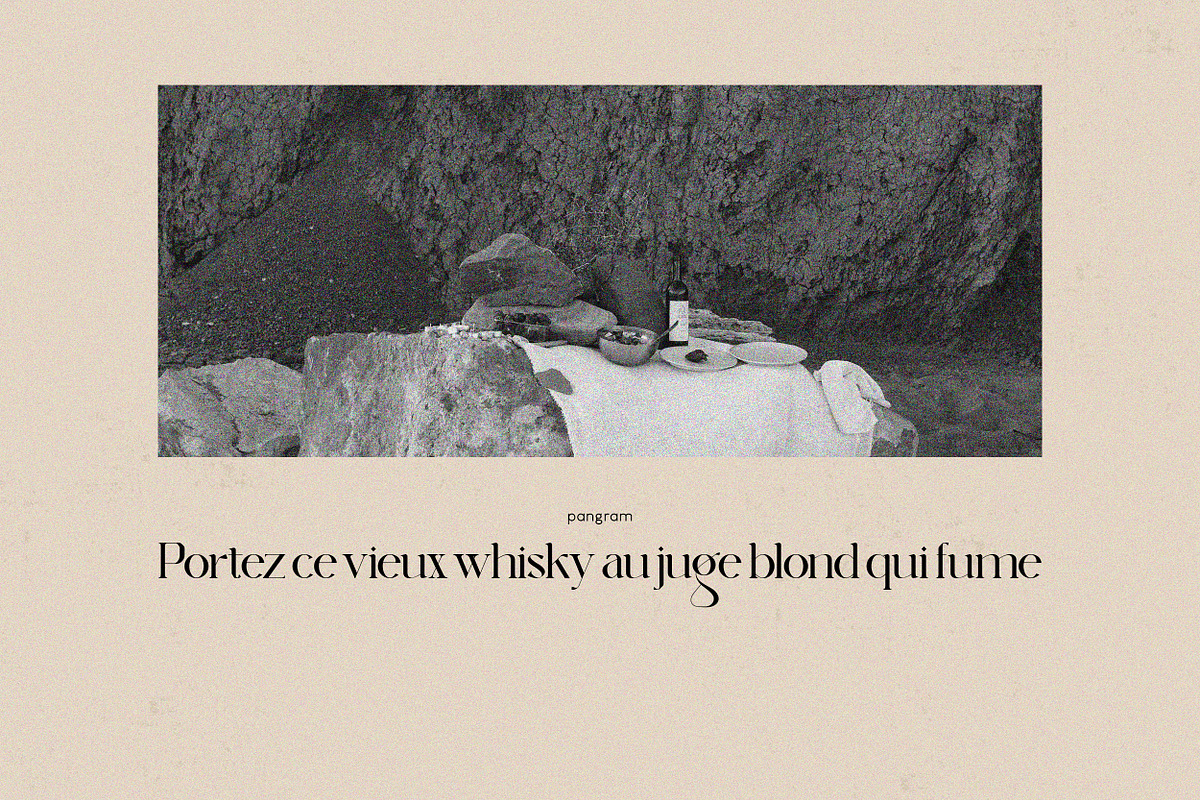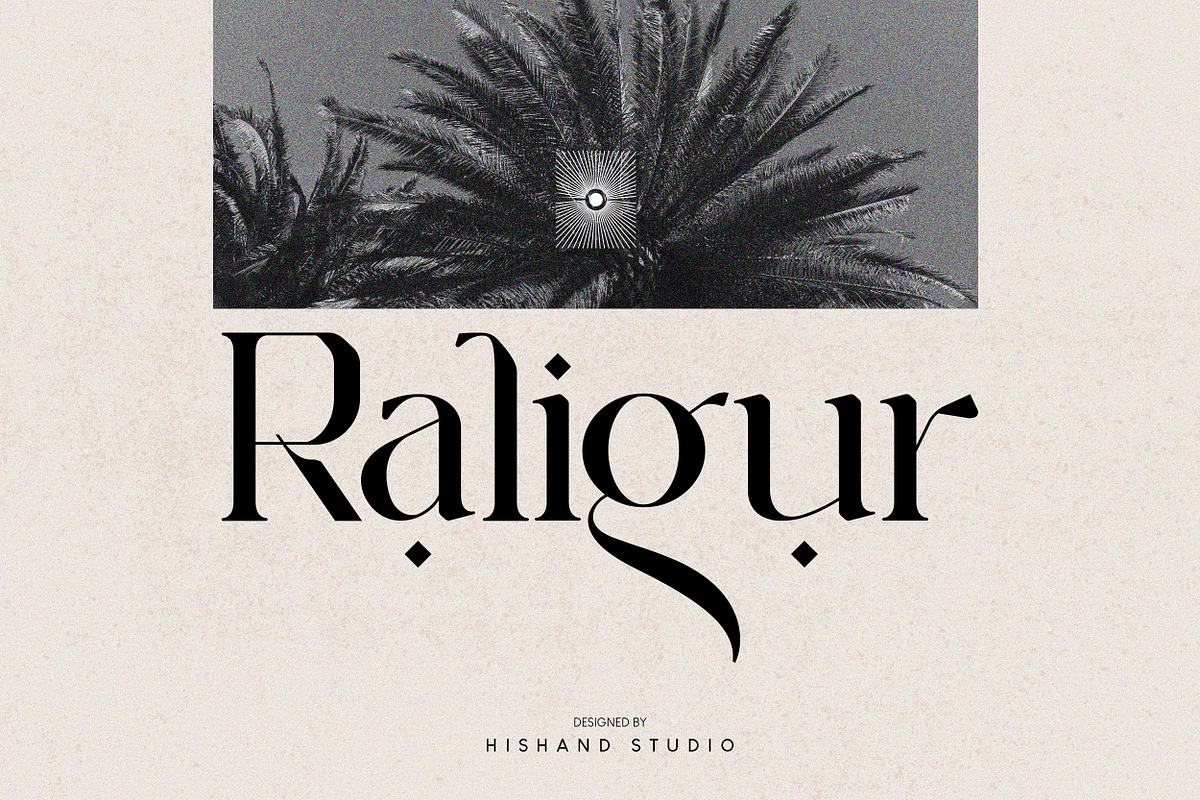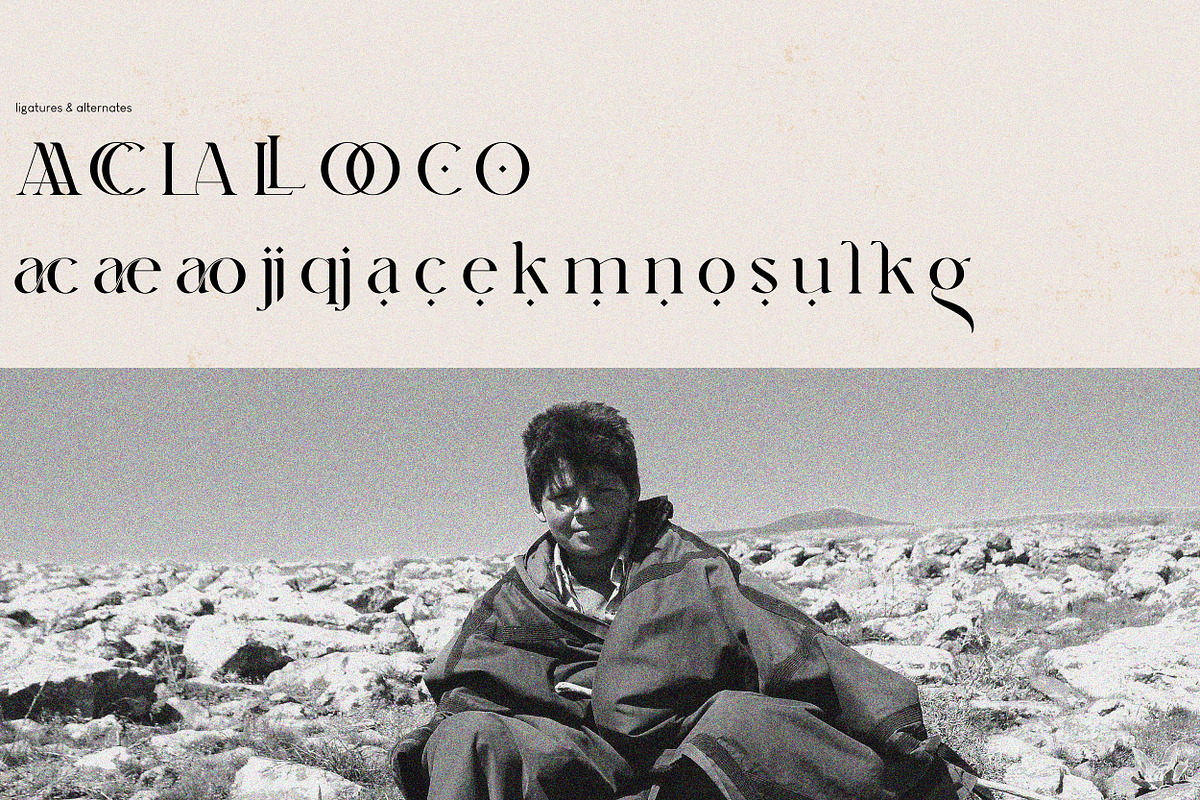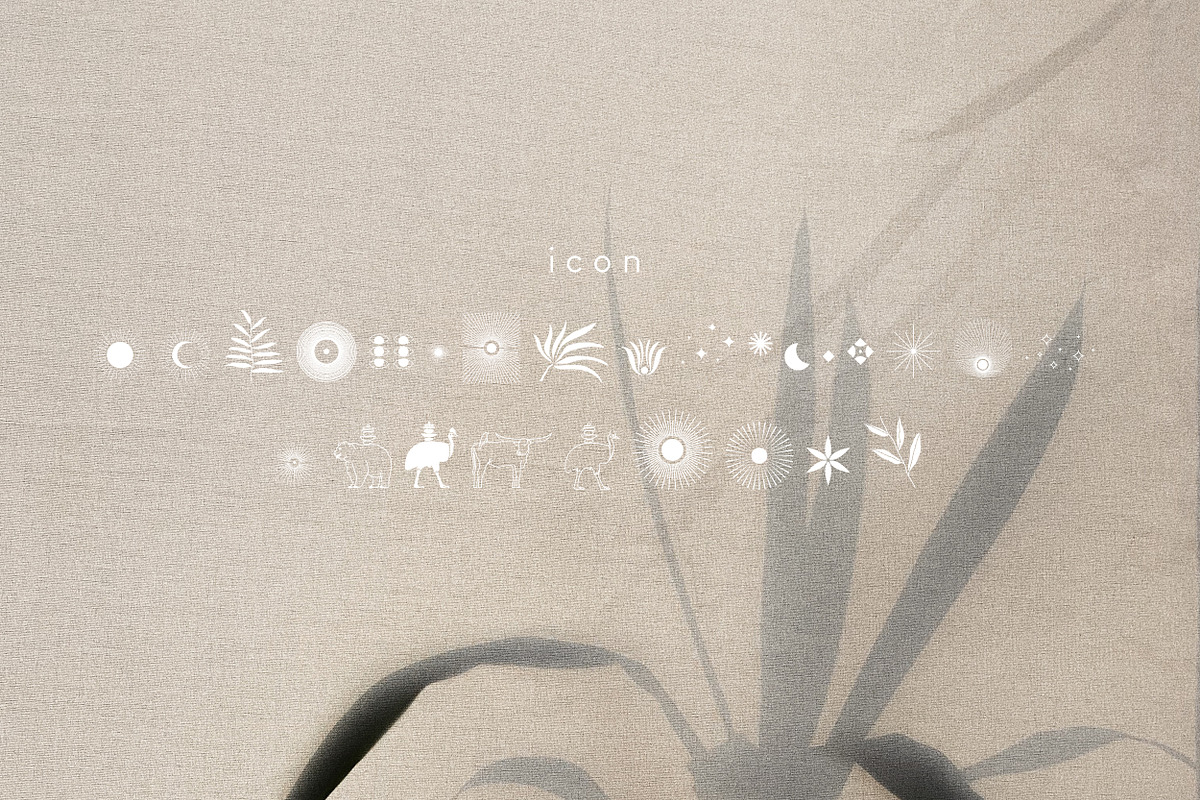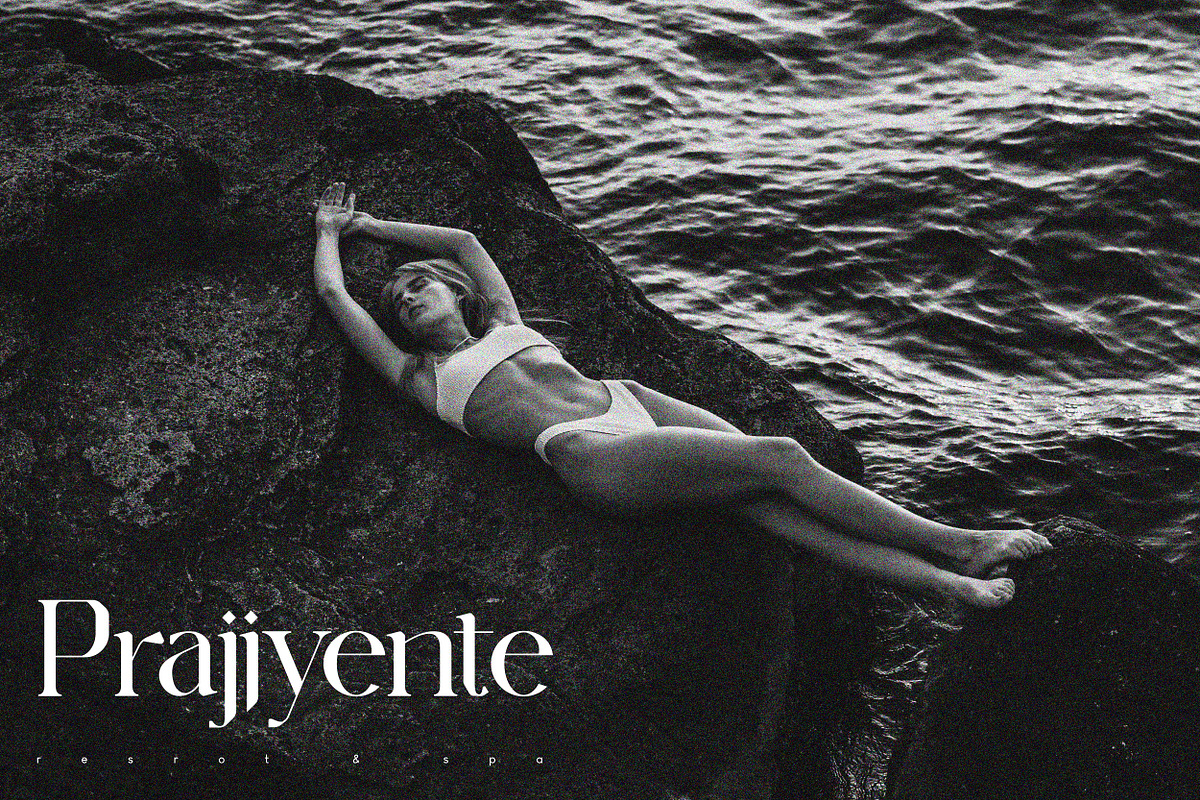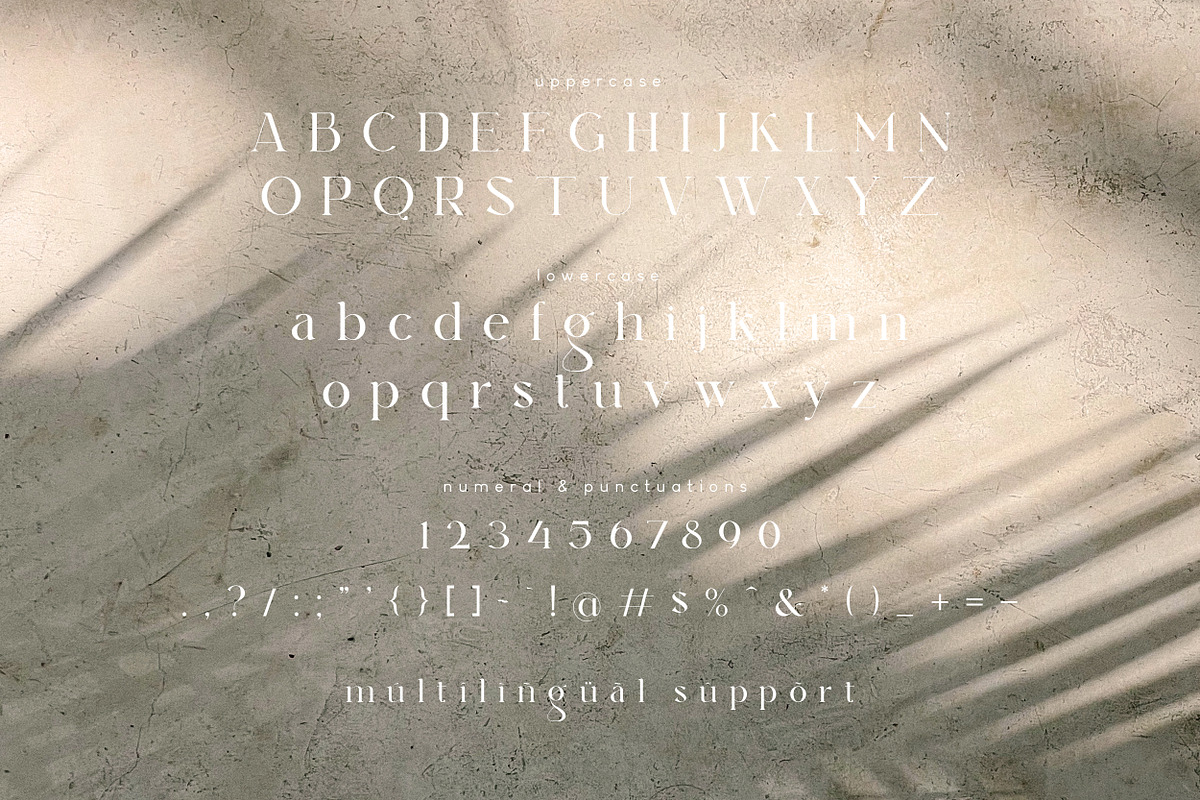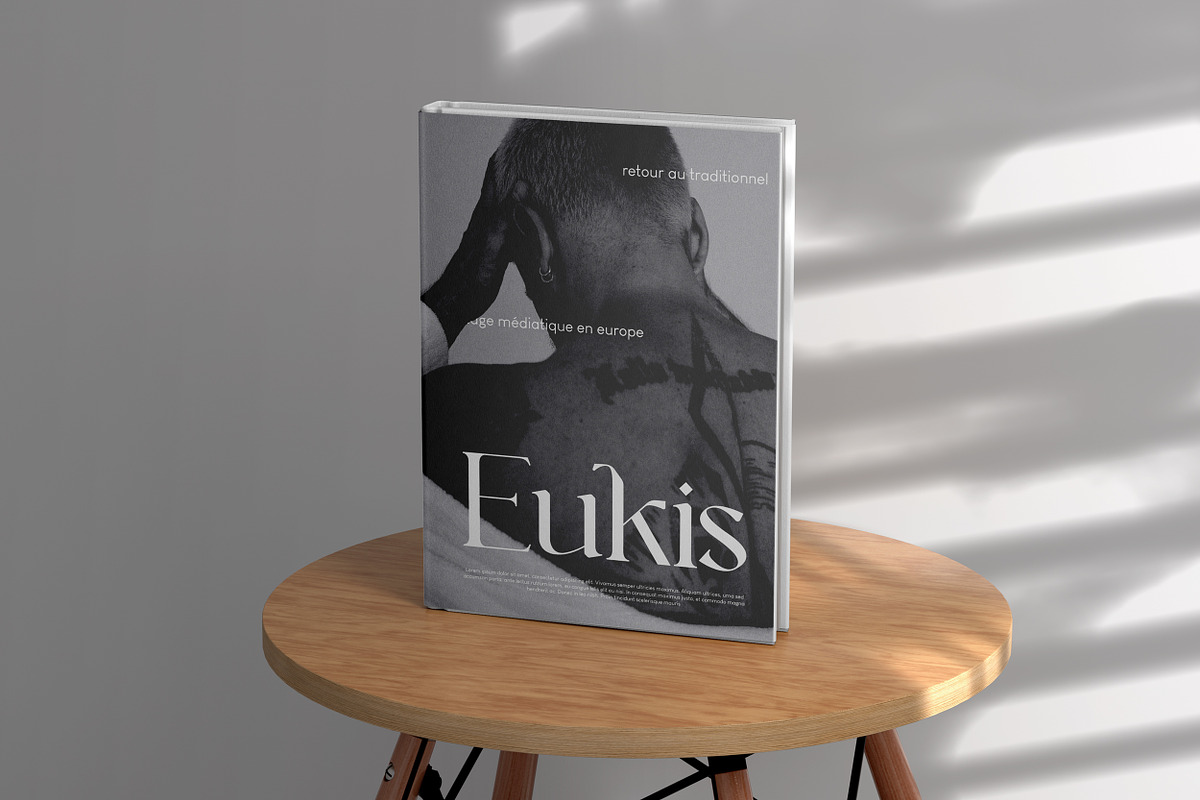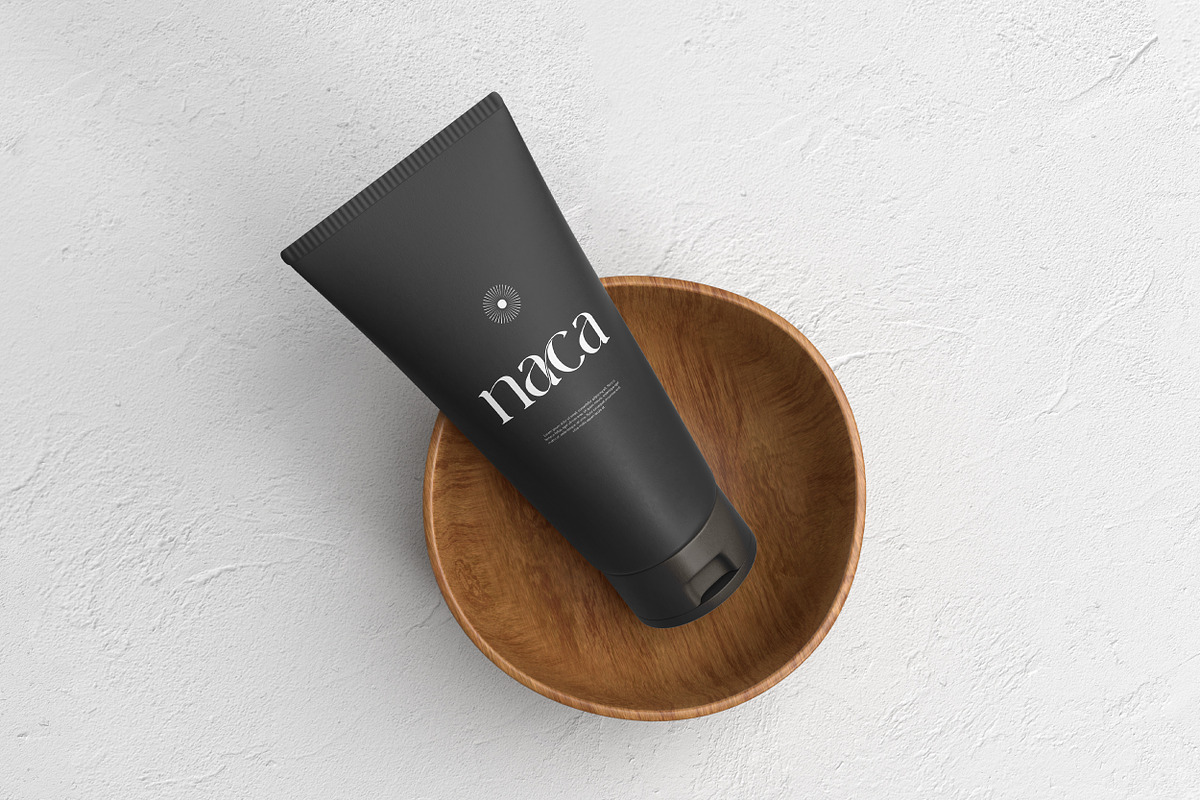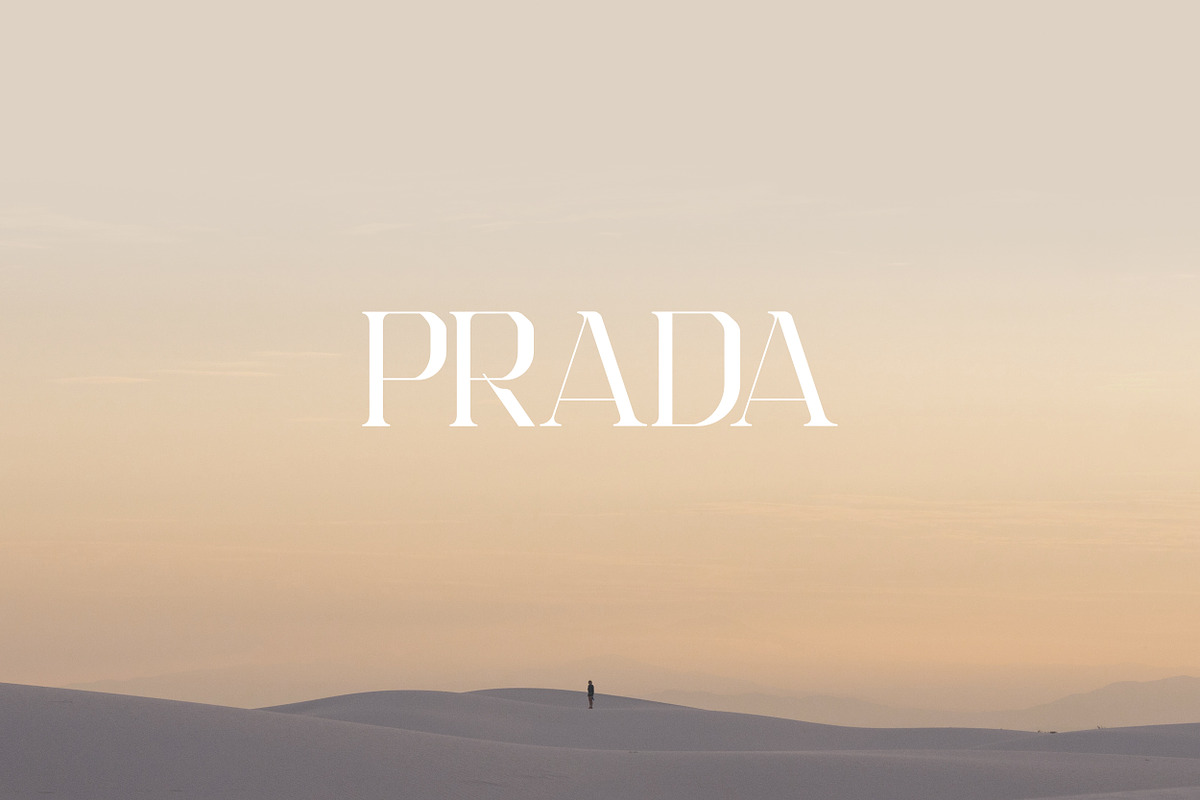
Raligur Serif Font
Raligur is a harmonious blend of timeless aesthetics and modern versatility, making it a perfect choice for designers seeking a balance between tradition and innovation. Featuring exquisite details and a sense of timeless appeal, Raligur, the newly unveiled serif font, sets the stage for elegant typography that leaves a lasting impression on any audience. Complete with
- alternates
- regular
- italic
- icon
- kerning
- multilingual support